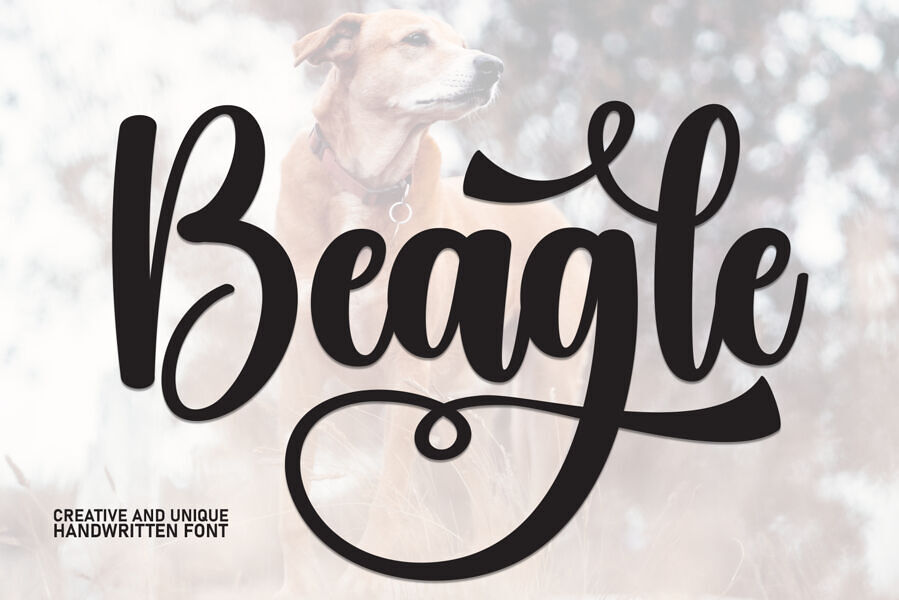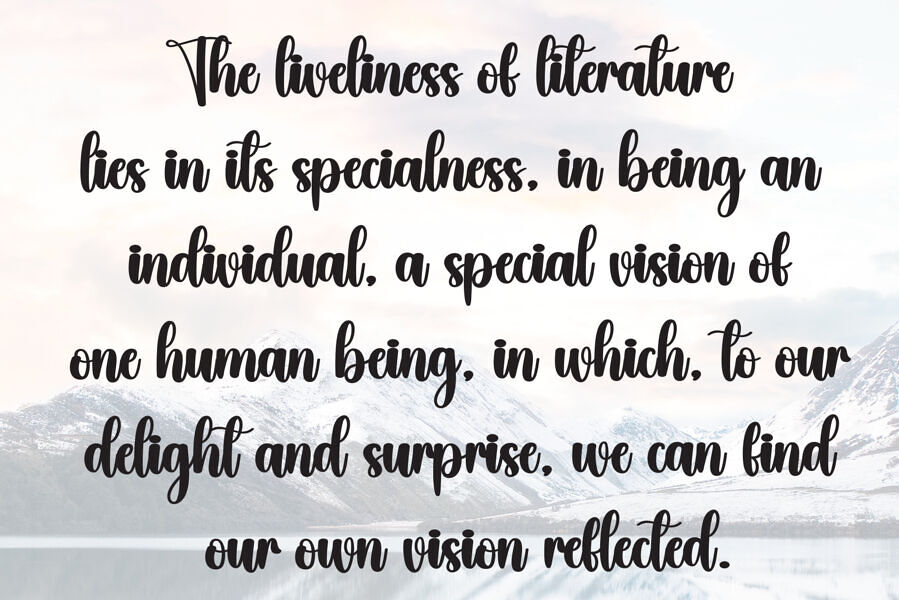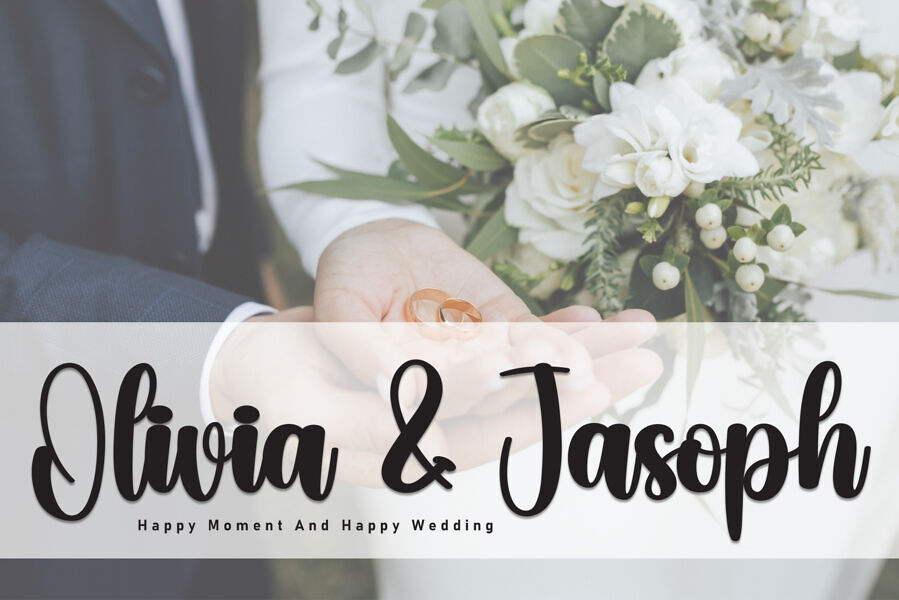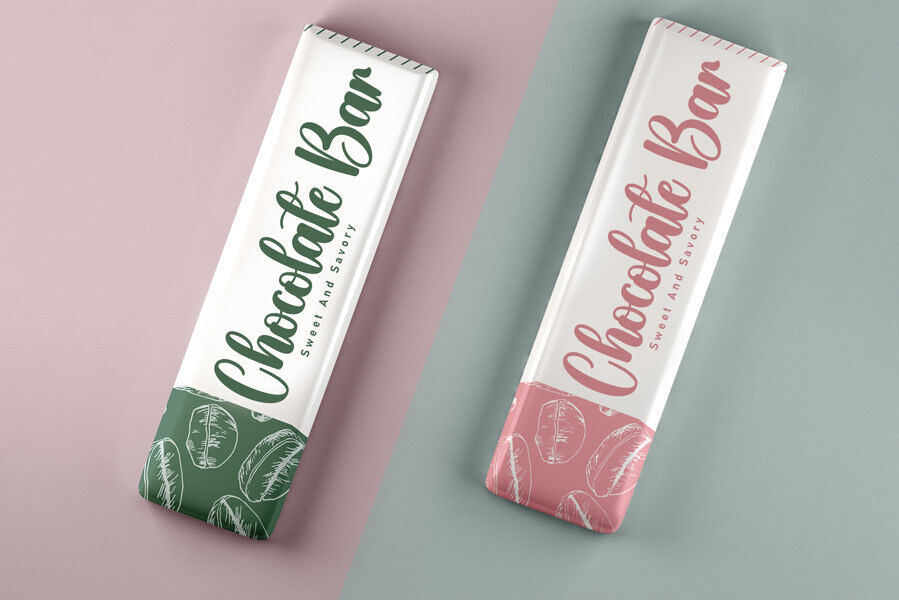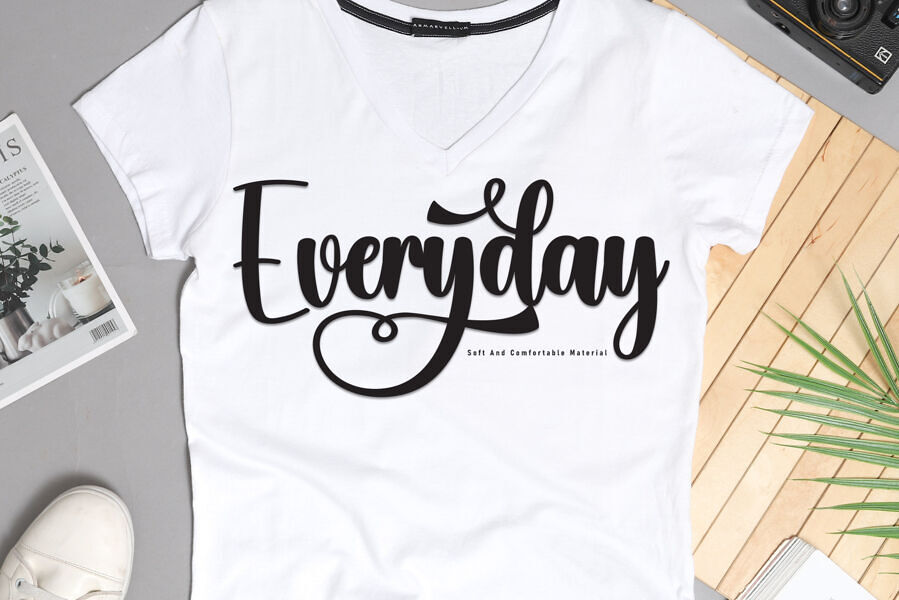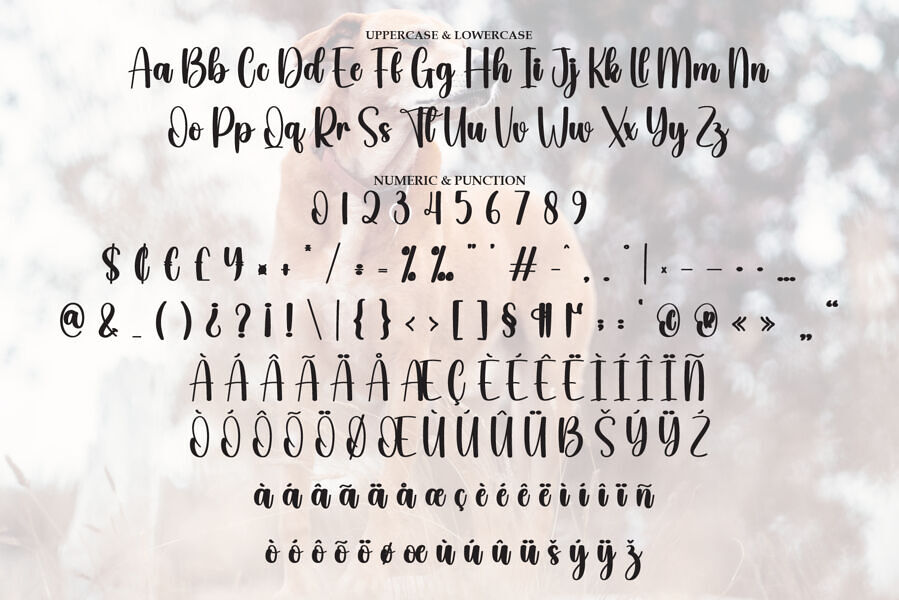
Beagle is a script typeface with a handwritten, cursive style, perfect for both formal and informal creative ideas. Its modern yet whimsical design, featuring elegant, flowing strokes, adds a touch of sophistication to invitation cards, letterheads, website logos, social media, banners, advertisements, brochures, packaging, leather products, and more.
With a complete set of beautiful uppercase and lowercase letters, numbers, punctuation, and ligatures, plus start and end flourishes on lowercase letters, it offers a realistic, luxurious look. This font’s romantic, feminine charm ensures your products look elegant and attractive, making it ideal for inspirational and festive designs.